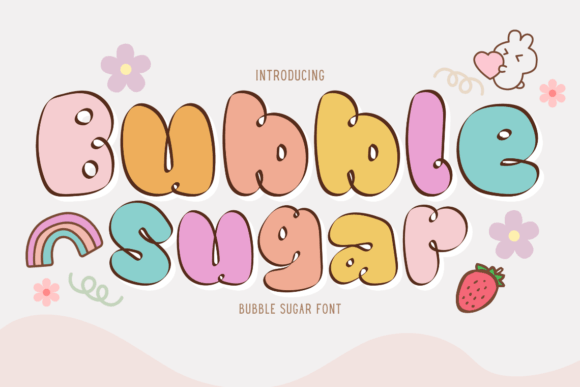
Bubble Sugar Font: The Sweetest Addition to Your Design Projects
Are you tired of using the same old fonts for your design projects? Look no further! Introducing Bubble Sugar Font, a delightful handwritten font that adds a playful touch to any project. With its sweet-themed alphabet graphics, this font is perfect for designers and crafters who want to bring a fun and whimsical vibe to their designs.
What is Bubble Sugar Font?
Bubble Sugar Font is a unique and charming font that features a handwritten style with sweet-themed graphics. The font is designed to resemble bubbly, sugary treats, making it perfect for projects that require a playful and fun touch. Whether you’re creating paper notes, worksheets, or other materials, Bubble Sugar Font is sure to add a delightful twist to your designs.
Key Features of Bubble Sugar Font
- Handwritten style: Bubble Sugar Font features a beautiful, handwritten style that adds a personal touch to your designs.
- Sweet-themed alphabet graphics: The font includes sweet-themed graphics for each alphabet letter, making it perfect for projects that require a playful touch.
- Playful and whimsical vibe: Bubble Sugar Font brings a fun and whimsical vibe to your designs, making it perfect for projects that require a creative and imaginative approach.
- Versatile: The font can be used for a variety of projects, including paper notes, worksheets, and other materials.
Why Use Bubble Sugar Font?
There are many reasons why you should consider using Bubble Sugar Font for your design projects. Here are a few:
- Adds a playful touch: Bubble Sugar Font adds a playful touch to your designs, making them more engaging and fun.
- Perfect for creative projects: The font is perfect for creative projects that require a whimsical and imaginative approach.
- Unique and charming: The font is unique and charming, making it perfect for designers and crafters who want to stand out from the crowd.
Design Ideas Using Bubble Sugar Font
Bubble Sugar Font is a versatile font that can be used for a variety of design projects. Here are a few ideas to get you started:
- Paper notes: Use Bubble Sugar Font to create fun and playful paper notes for your friends and family.
- Worksheets: Add a playful touch to your worksheets by using Bubble Sugar Font.
- Party invitations: Use Bubble Sugar Font to create fun and playful party invitations.
- Social media graphics: Add a playful touch to your social media graphics by using Bubble Sugar Font.
In conclusion, Bubble Sugar Font is a delightful handwritten font that adds a playful touch to any project. With its sweet-themed alphabet graphics and whimsical vibe, this font is perfect for designers and crafters who want to bring a fun and creative approach to their designs. Whether you’re creating paper notes, worksheets, or other materials, Bubble Sugar Font is sure to add a delightful twist to your designs. So why wait? Download Bubble Sugar Font today and let your creativity bubble!